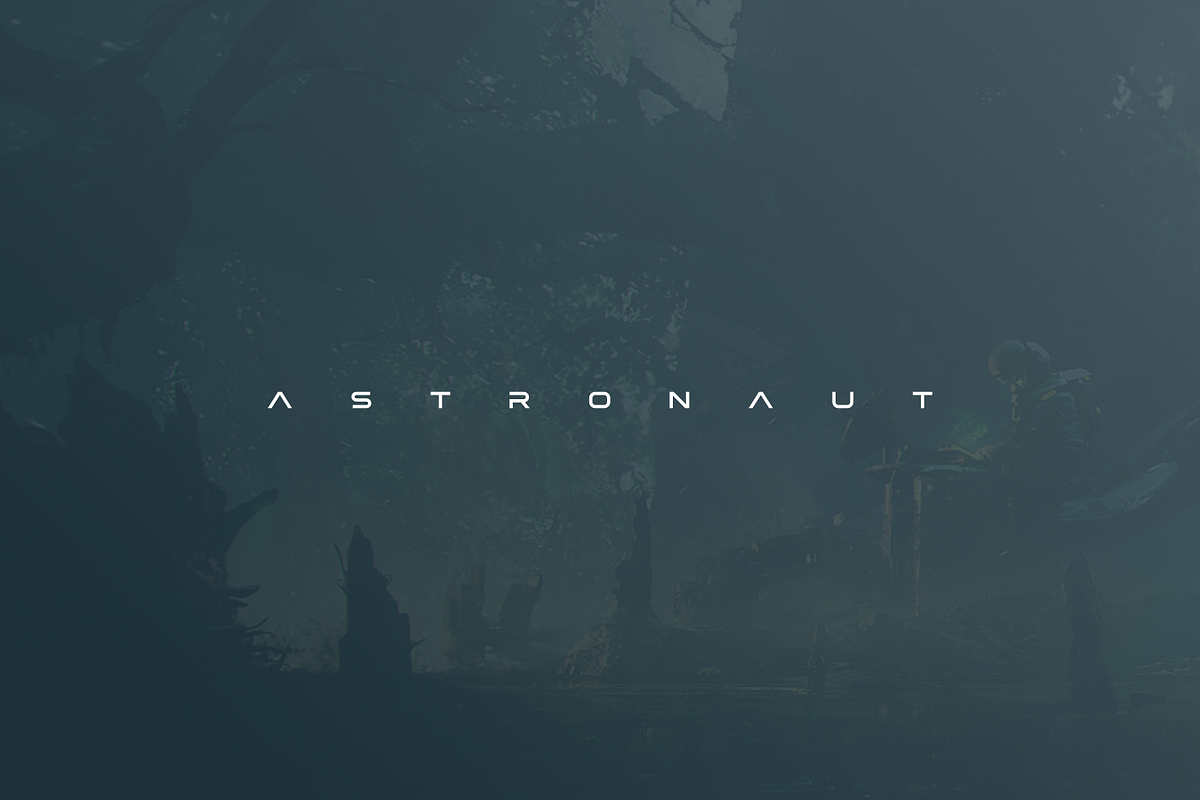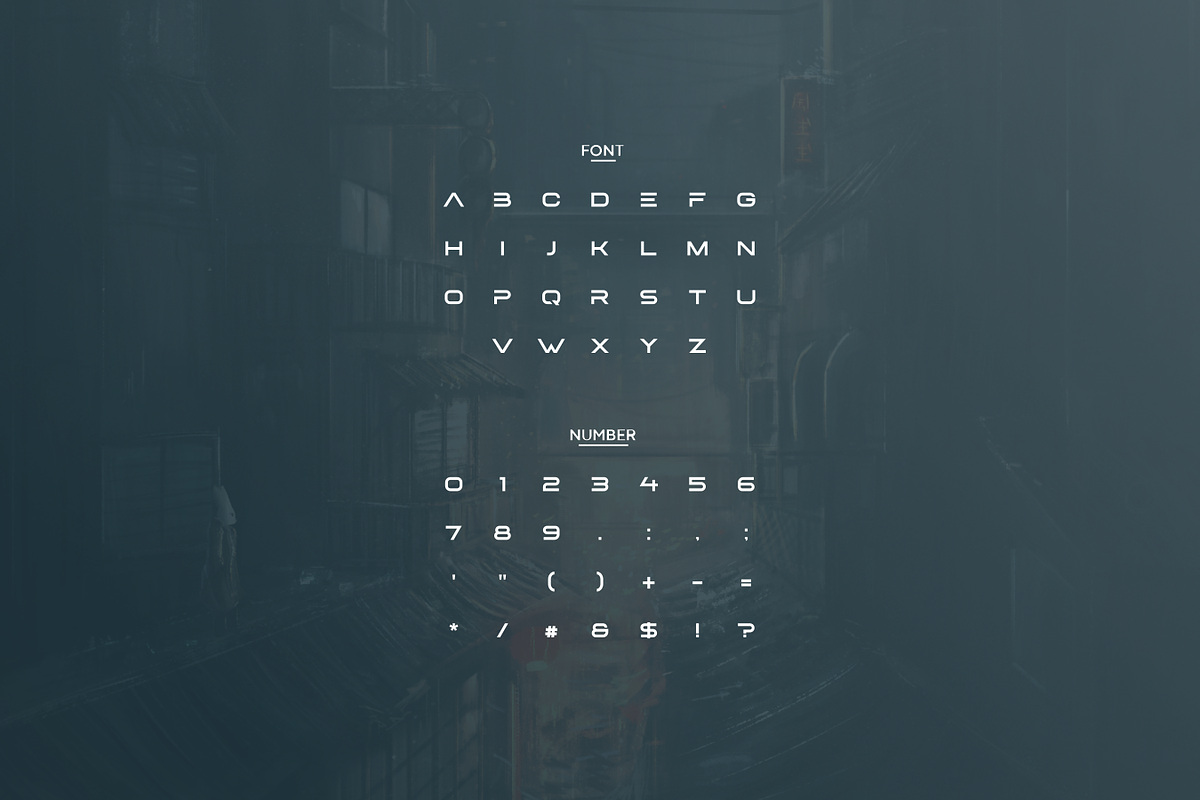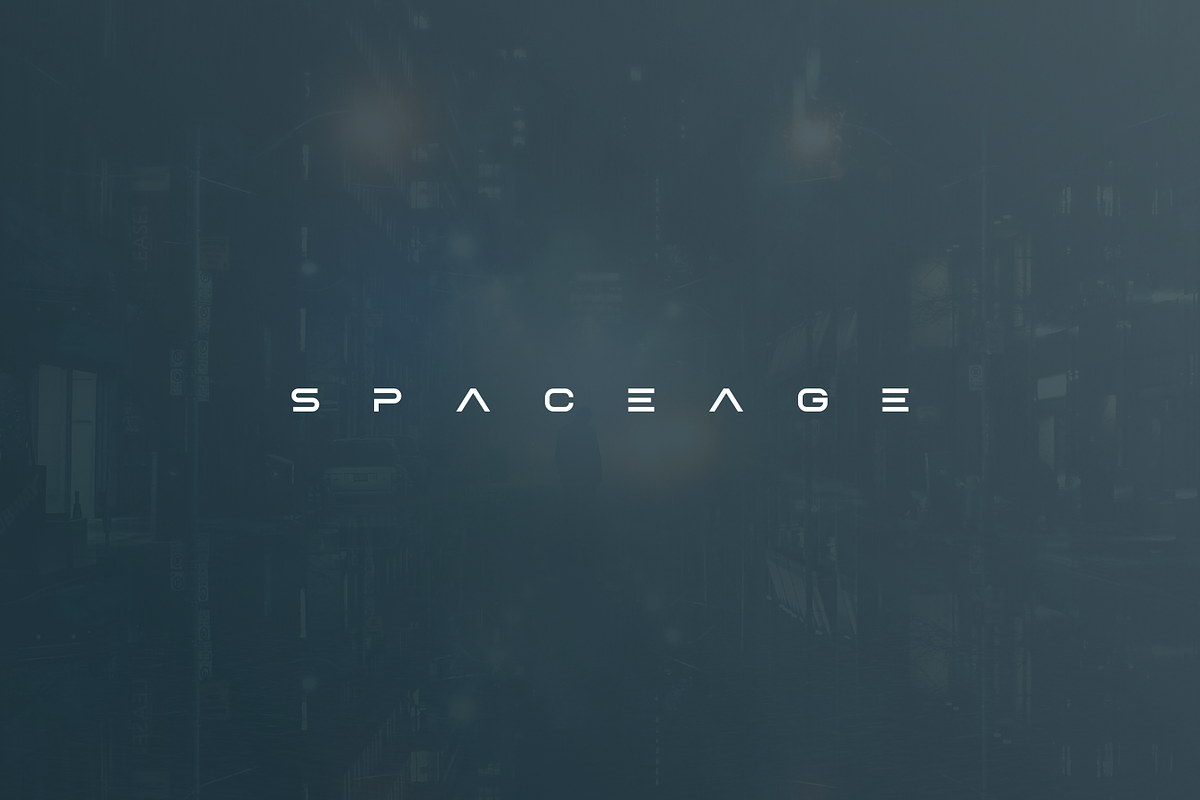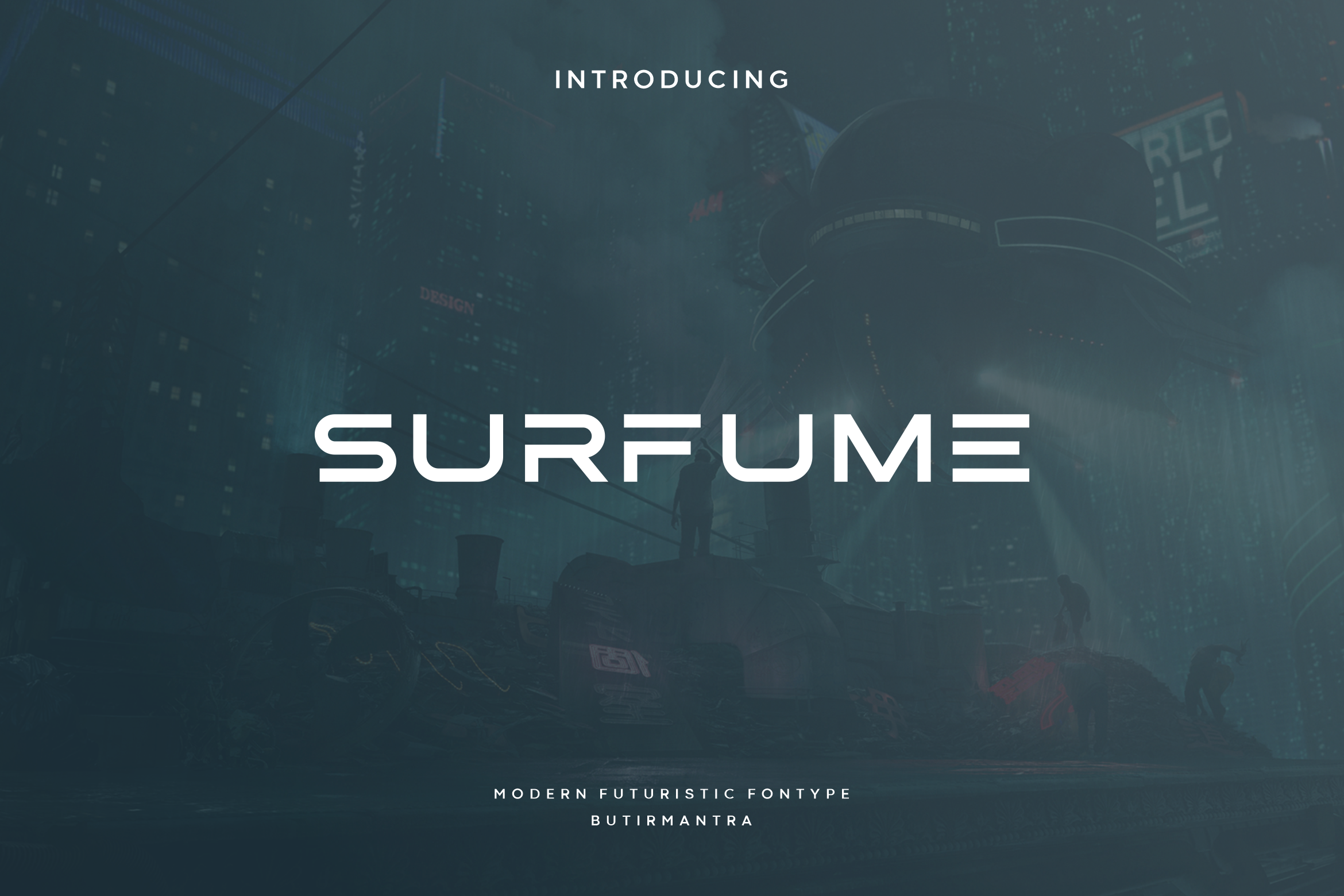
Surfume - Futuristic Typeface
Surfume is a futuristic font inspired by science fiction films and books. Minimalistic is the main style for this typeface and the simple style actually gives it a more modern and elegant look. This font is suitable for various purposes such as movies, posters, logos, labels, webfonts and other modern purposes. Many alternative characters are included for this font, with separate lowercase styles making it look more futuristic and cool.